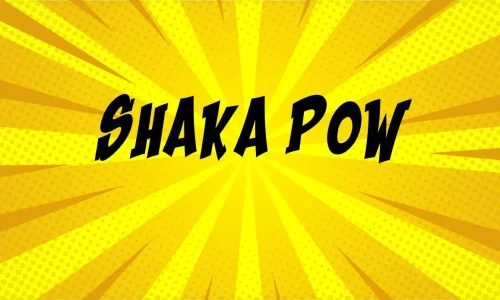
Apostrophic Labs is the creator of this nice and attractive typeface. This creative and animation design is appropriate for making amazing content. This excellent font can be used to create eye-catching logos for various businesses and organizations.
It is possible to create some great displays when you pair this typeface with another. An attractive texture design can be seen in this fancy typeface.